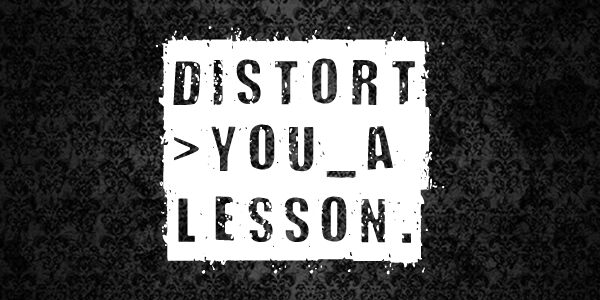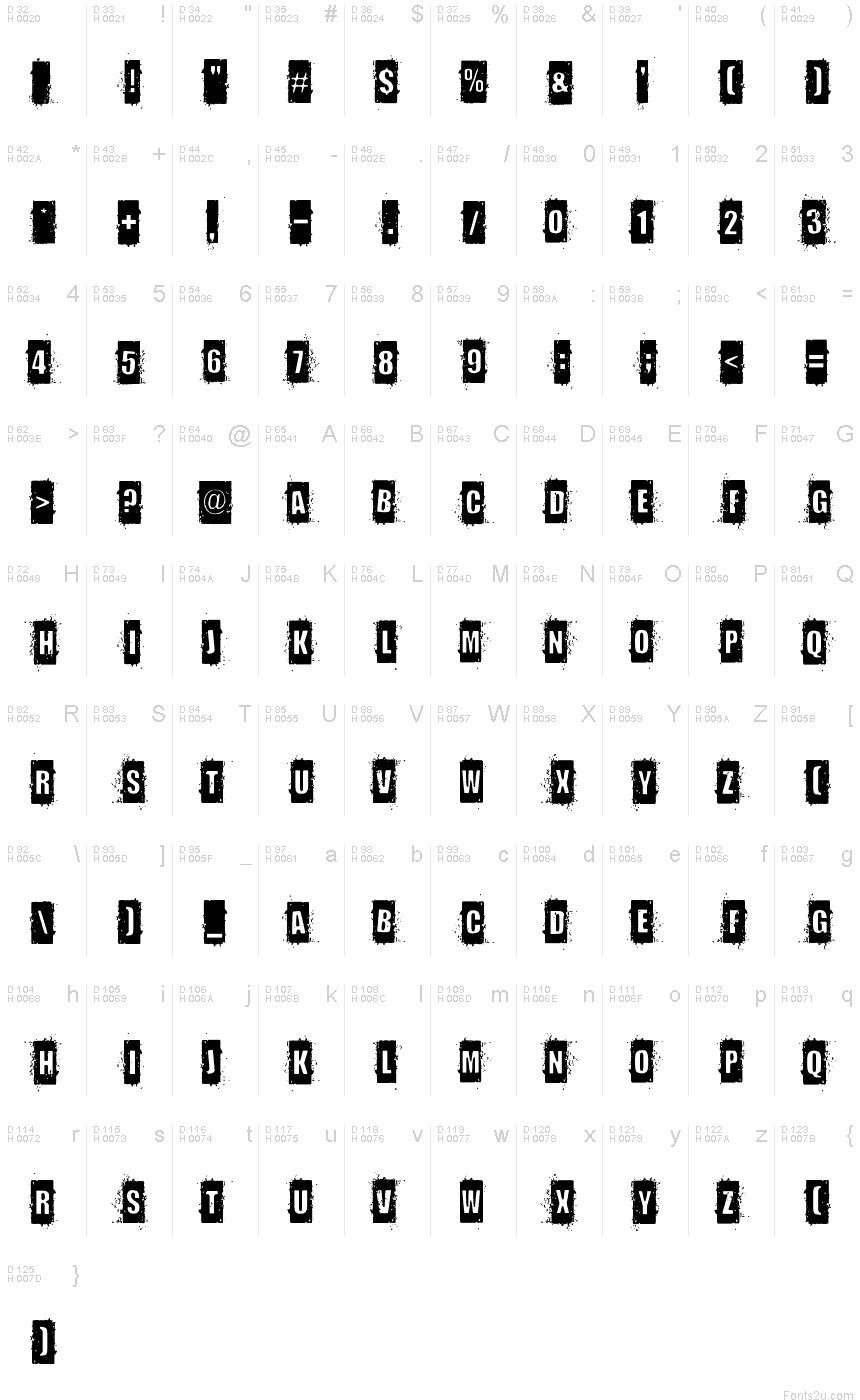
Distort You A Lesson
Distort You a Lesson, created by NAL Games in 2013, is a free eroded display font with tall, narrow capitals punched through dense rectangular panels. Chips, scratches, and ragged gaps give every character a battered surface.
Its abrasive texture can link punk concert posters and album packaging with rougher projects such as skate merchandise or horror game graphics. On album packaging or event flyers, the dark rectangular mass can become part of a warning strip, stamped sign, or layered torn-paper collage, extending the battered print concept across the design and beyond ordinary lettering.